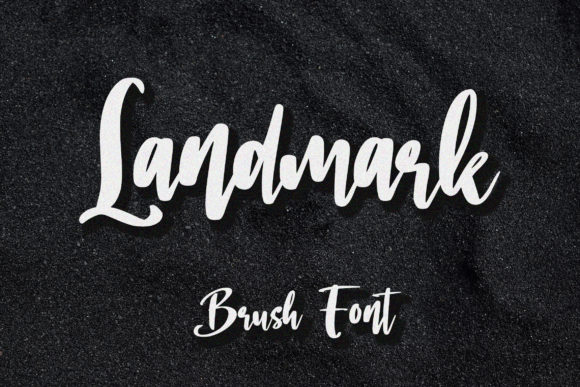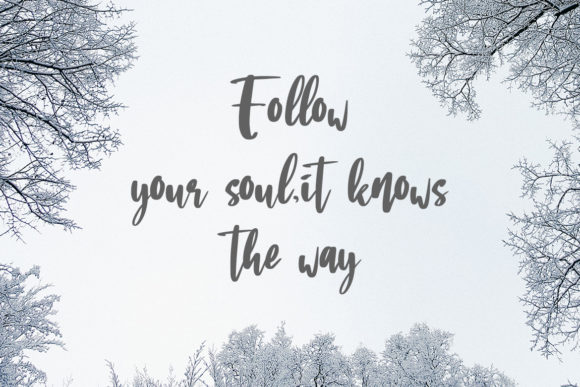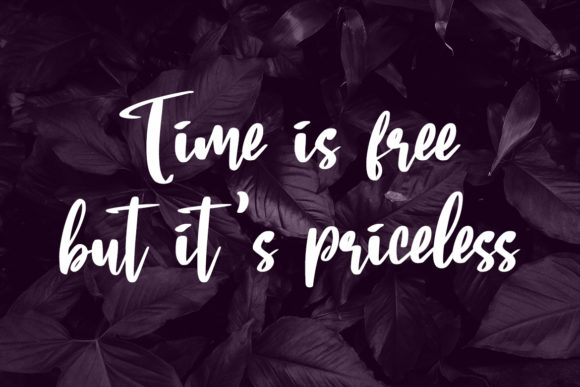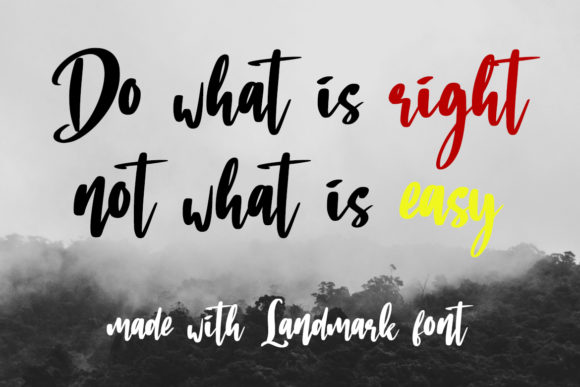
HomeScript FontsLandmark Font Script Fonts Landmark Font FacebookXPinterestWhatsApp Landmark Font Poster 2 Landmark Font Poster 3 Landmark Font Poster 4 About Landmark Font Landmark’s varying baseline and sweet curves make it an incredibly smooth and charming script. DOWNLOAD NOW People also explored Whiskey Girl Font Hillary Font Lineart Font Salma Desire Font Cartoon Frame Font Hendycroft Signature Font Plotterfreak Font Higanbana Font Bliss Sureal Font 287 0 TagsLandmark Font Previous articleBetter Caller FontNext articleBaleria Font LEAVE A REPLY Cancel reply Comment: Please enter your comment! Name:* Please enter your name here Email:* You have entered an incorrect email address! Please enter your email address here Website: Save my name, email, and website in this browser for the next time I comment. Personal Use Free Goodline Font Personal Use Free Read more about this font Hanberra Personal Use Free Read more about this font Creativo Personal Use Free Read more about this font Cleopatra Font Personal Use Free Read more about this font BLOG How to Cut Any Font on Cricut: Convert a Font to SVG (Free) Turn any font into a clean SVG so it cuts crisp on Cricut - a quick 3-step workflow using a free font-to-SVG tool. Elegant Wedding Invitation Fonts – Handwritten & Script Fonts Modern Sans-Serif Fonts That Brands Love in 2025 Best Fonts for YouTube Videos: Make Your Thumbnails Stand Out